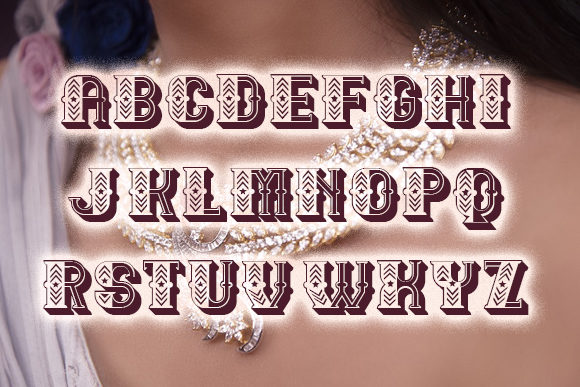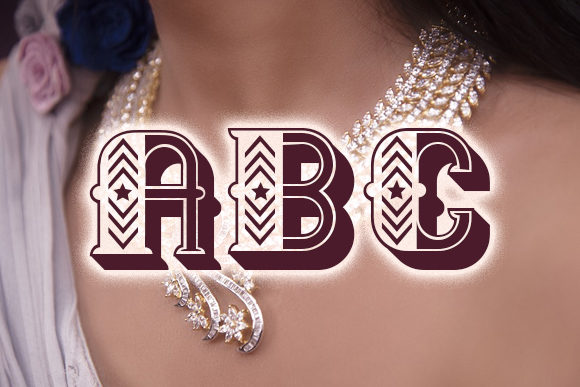
Introduction to Necklace Font
Necklace is an elegant decorative font that will look fresh on any design.
Add this font to your creative ideas and notice how it will make them stand out .
Key Features of Necklace Font
Why Choose Necklace Font?
Necklace Font offers exceptional quality and versatility, making it a valuable addition to your design toolkit. Whether you’re creating for personal projects or commercial use, Necklace Font delivers professional results.